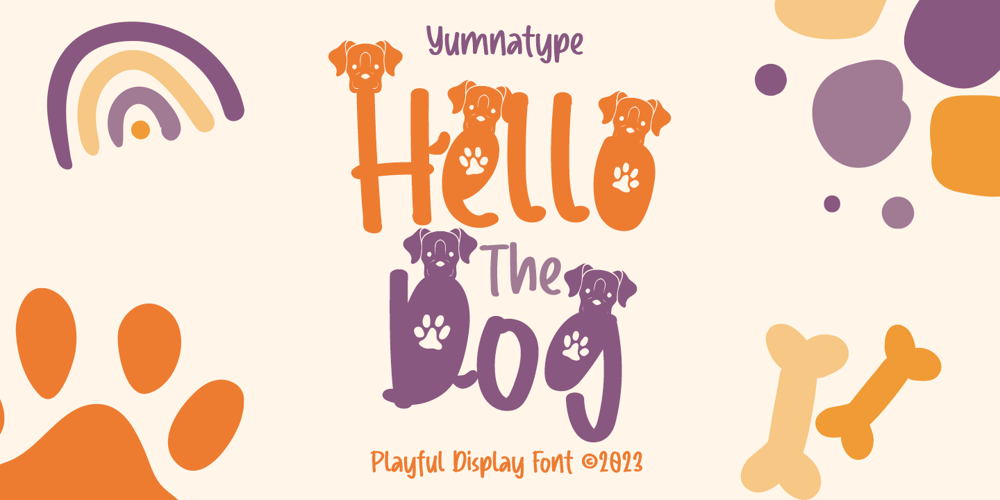
Hello The Dog Font Family was designed by Donis Miftahudin and published by Yumna Type. Hello The Dog contains 1 styles and family package options. t can be complicated to create unique, attractive designs for your latest projects especially when you are left with an abundance of boring fonts because ordinary fonts make your designs less prominent, unattractive, and unprofessional. Therefore, we would like to introduce you to Hello the Dog.Hello the Dog is a display font with cute, charming characters inspired by a dog theme. All of its letters and characters are created in a cute way that portrays a dog’s characteristics, such as long ears, big eyes, and a cute nose. It has various sizes and variations ranging from uppercases for title displays and lower cases for softer text displays. Hello the Dog font, of which available features and a clipart bonus you can enjoy, will live up and charm your designs in order to attract the audience with the theme you have. In fact, it will also help you build up your brand identity to be unique and memorable, particularly brands related to dogs or pets.Features: Alternates Multilingual Supports PUA Encoded Numerals and Punctuations Hello the Dog fits best for various design projects, such as brandings, headings, magazine covers, quotes, printed products, merchandise, social media, etc. Find out more ways to use this font by taking a look at the font preview.Thanks for purchasing our fonts. Hopefully, you have a great time using our font. Feel free to contact us anytime for further information or when you have trouble with the font. Thanks a lot and happy designing.